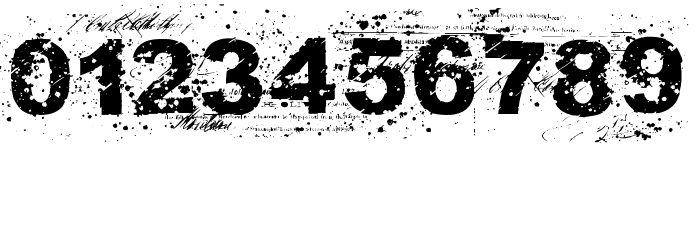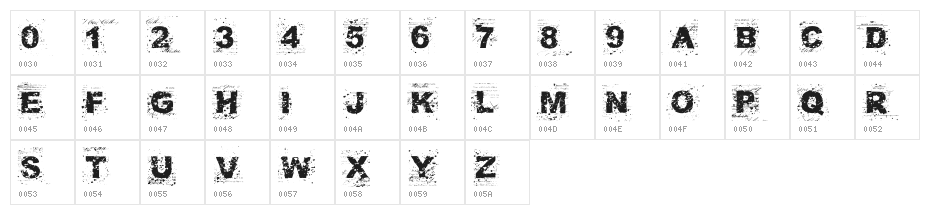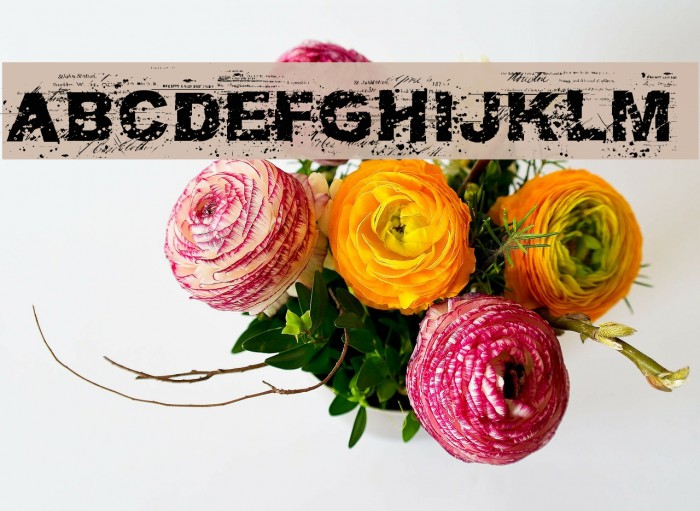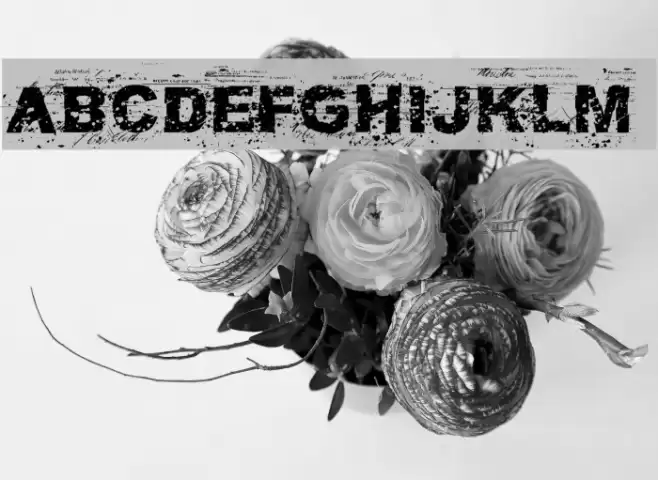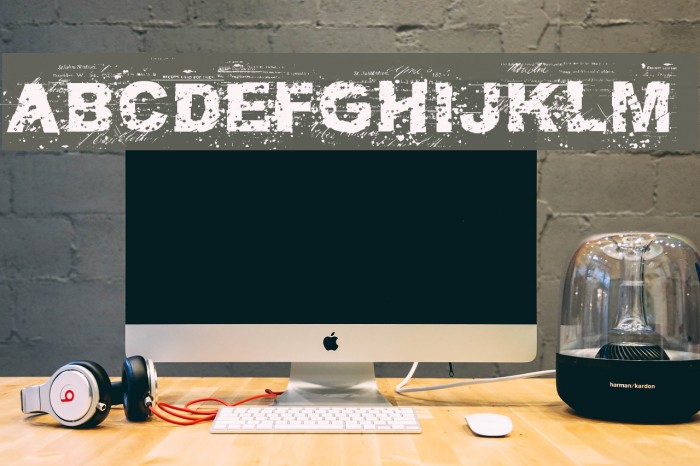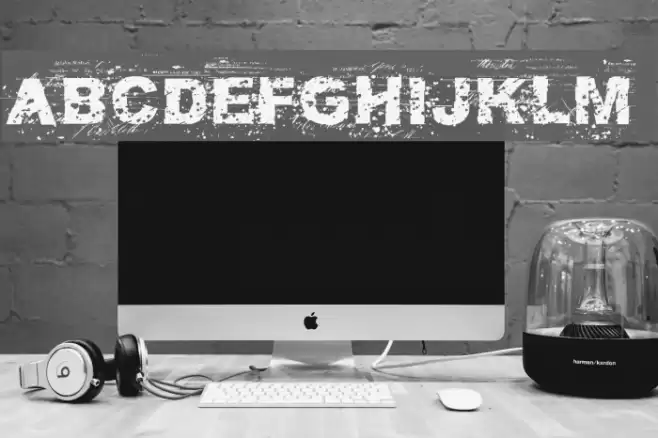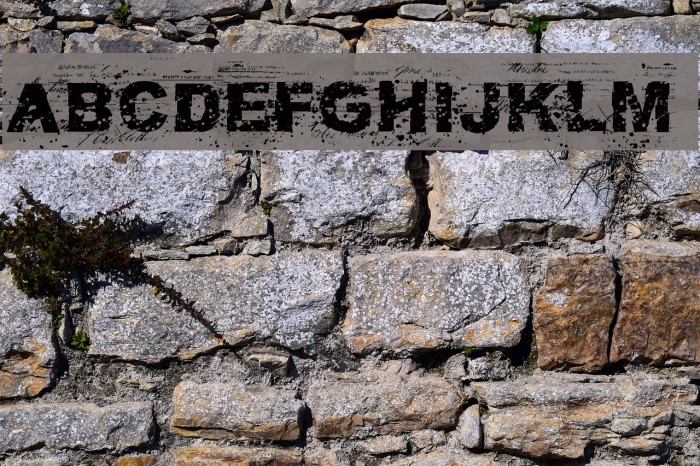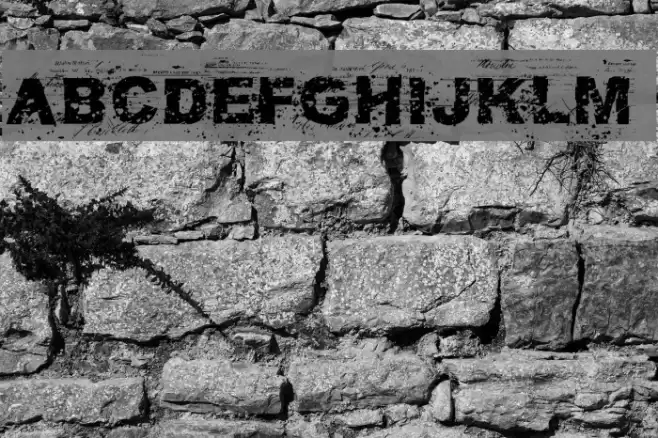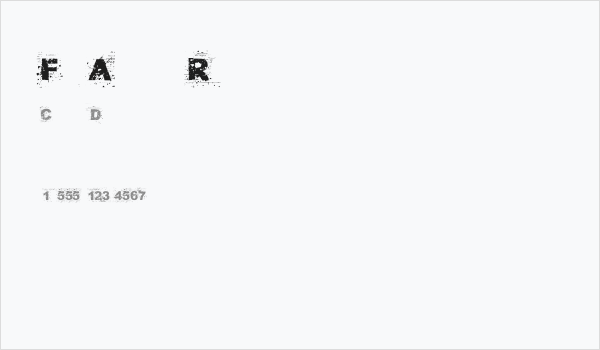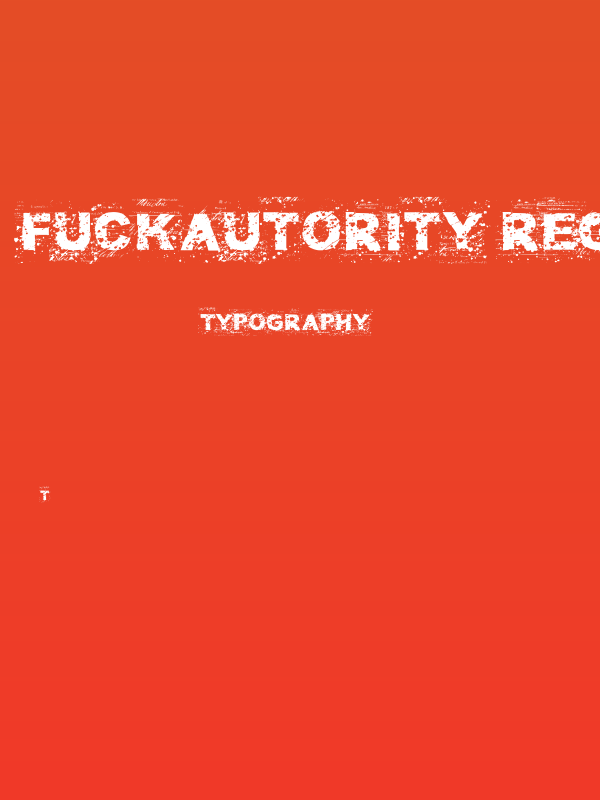
FuckAutority Regular Font
FuckAutority Regular Description
This font features a bold, distressed style with a grunge texture that gives it a rebellious and edgy appearance. The uppercase letters are prominent and impactful, while the numbers maintain the same rugged aesthetic. The texture appears as splatters and scratches, adding a raw and dynamic feel to the characters. This font is ideal for projects that require a bold statement or an urban, gritty look. It captures attention with its unique and unconventional style, making it suitable for creative and artistic endeavors.
| Overall Style | Grunge, Urban |
| Proposed Projects | Album covers, streetwear branding, posters, skateboarding graphics, and event flyers. |